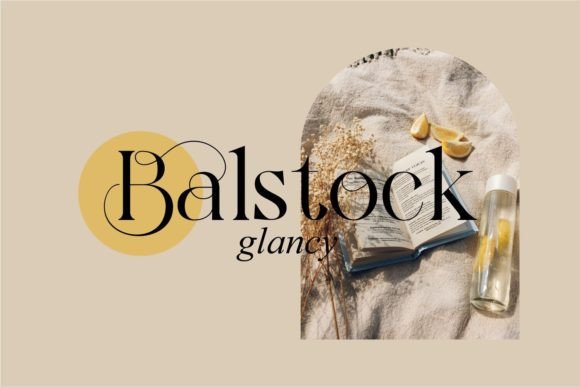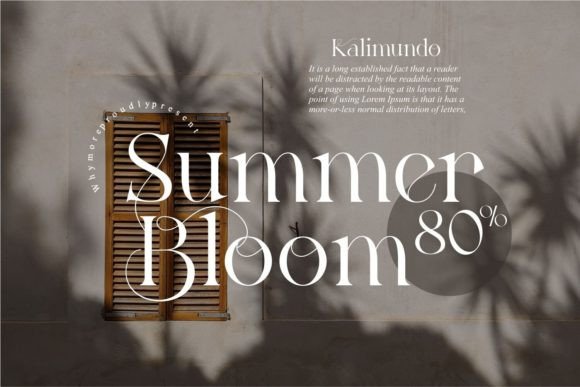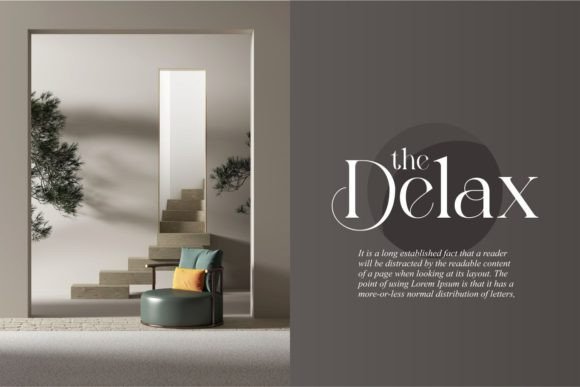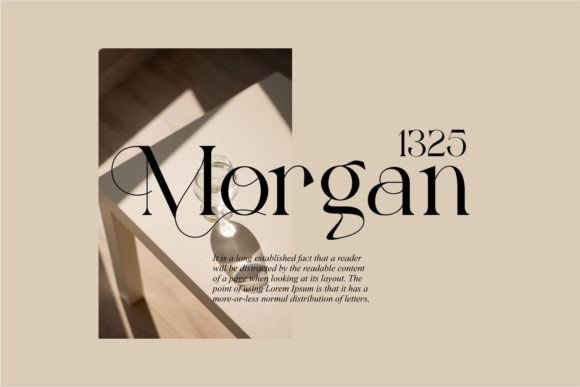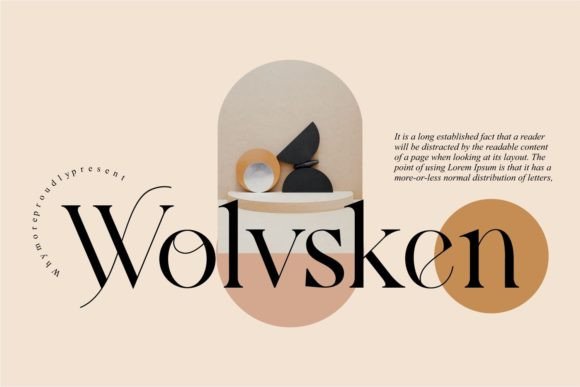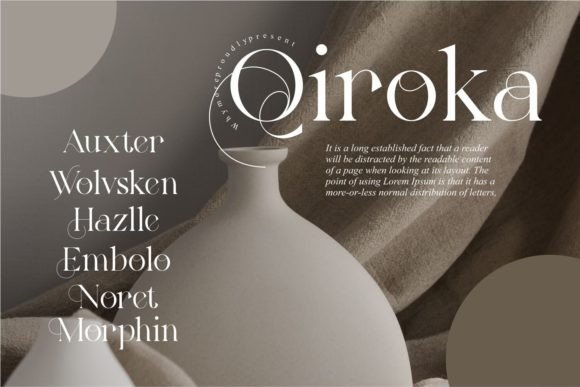
The Elegance of Grange Sofany: A Designer’s New Best Friend
I still remember the time I was working on a luxury branding project, and my client asked for a font that exuded elegance and sophistication. I scoured the internet, tried out countless typefaces, but none seemed to fit the bill. That was until I stumbled upon Grange Sofany. This beautiful font has been a game-changer for me, and I’m excited to share its wonders with you. 😊
An Honest Review of Grange Sofany
- ✨ Unique and graceful curves: Grange Sofany’s design is truly one-of-a-kind, making it perfect for projects that require a touch of luxury and elegance.
- ✅ Thinly defined Serif: The subtle serif details add a level of sophistication and refinement to any design.
- 💫 Flexibility: Grange Sofany is suitable for a wide range of designs, from branding and invitations to editorial design and more.
While Grange Sofany is an amazing font, there are a few things to keep in mind:
- ⚠️ Limited use in body text: Due to its elegant and refined nature, Grange Sofany might not be the best choice for lengthy body text. It’s better suited for headings, titles, and short paragraphs.
- 🤔 Requires careful pairing: Grange Sofany can be a bit particular when it comes to pairing with other fonts. Experiment with different combinations to find the perfect match.
A Practical Guide to Using Grange Sofany
- Experiment with OpenType features like ligatures and stylistic alternates to add an extra layer of elegance to your design.
The Backstory of Grange Sofany
Grange Sofany was designed with the intention of creating a typeface that embodies elegance and sophistication. The designer aimed to craft a font that would add a touch of luxury to any project, while still being versatile and flexible. The result is a beautiful font that’s perfect for designers, crafters, and creative hobbyists looking to elevate their designs.
Q: What makes Grange Sofany unique?
A: Grange Sofany’s unique and graceful curves, combined with its thinly defined serif, make it a standout font that’s perfect for designs that require elegance and sophistication.
Q: Can I use Grange Sofany for body text?
A: While Grange Sofany is beautiful, it’s better suited for headings, titles, and short paragraphs. For lengthy body text, consider pairing it with a more readable font.
Q: Is Grange Sofany suitable for digital projects?
A: Absolutely! Grange Sofany’s refined design makes it perfect for digital projects, including websites, social media graphics, and more.